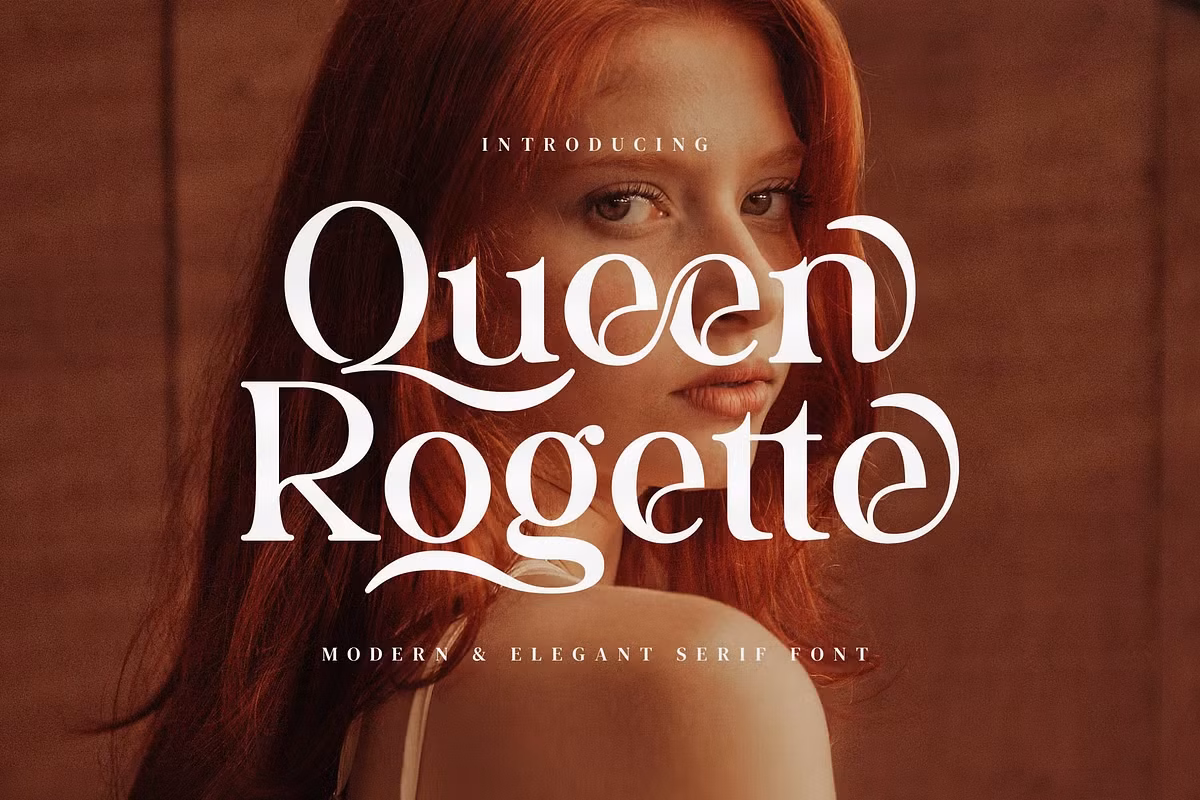
Queen Rogette – A Stylish Serif Font Free Download is an elegant and modern typeface designed to add sophistication and flair to your designs. With its beautifully crafted serifs, sleek lines, and refined letterforms, Queen Rogette is perfect for branding, editorial layouts, fashion design, wedding invitations, and high-end packaging.
The font’s balance of classic serif elements and contemporary style makes it ideal for luxury brands and projects that require timeless elegance. Whether you're designing for print or digital media, Queen Rogette brings a sense of premium quality and grace to every project.
Designers love Queen Rogette for its versatility, readability, and ability to elevate both print and digital designs. Ready to add a touch of royal elegance to your work? Download Queen Rogette – A Stylish Serif Font Free Download and bring sophistication to your typography.